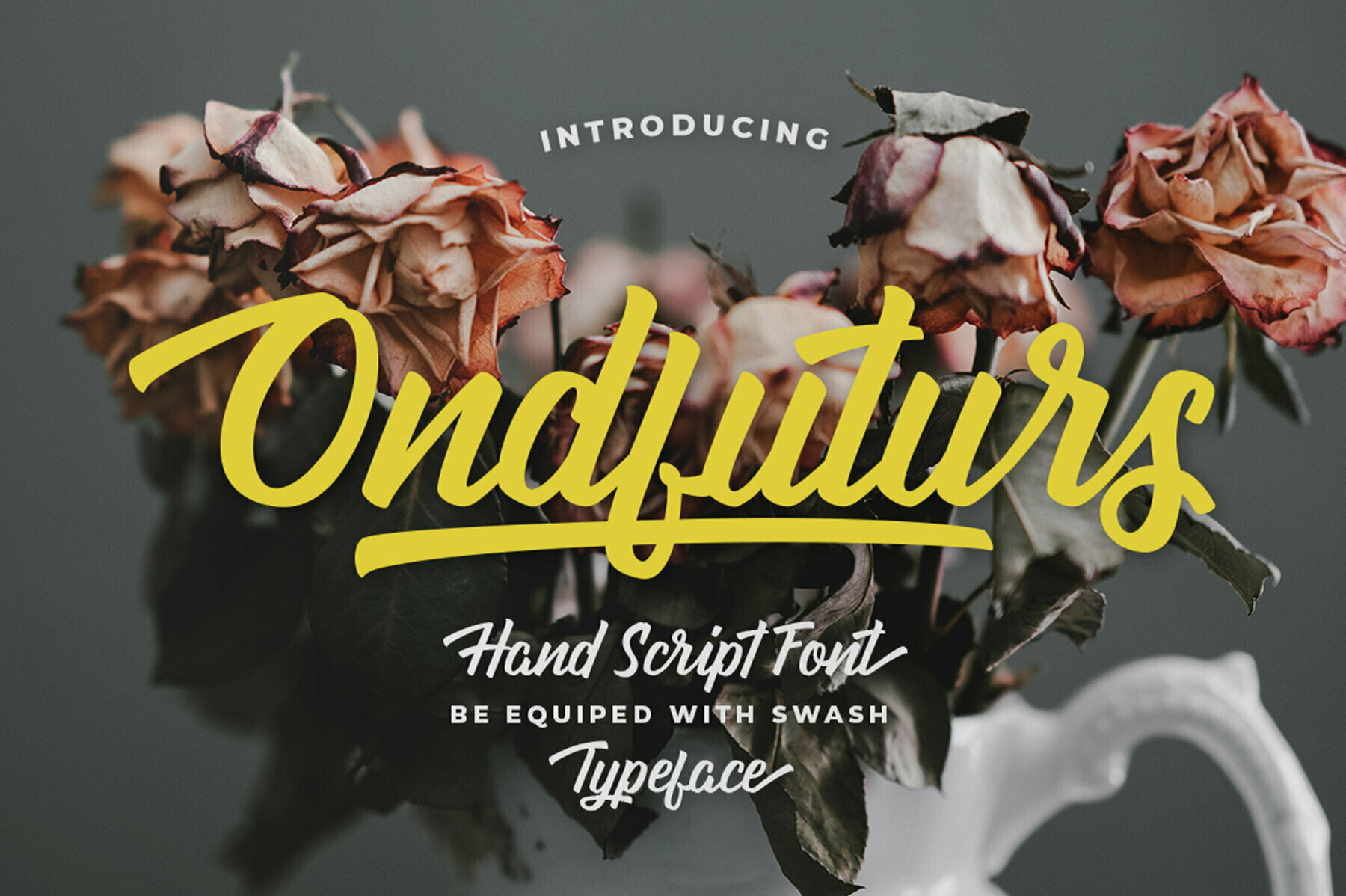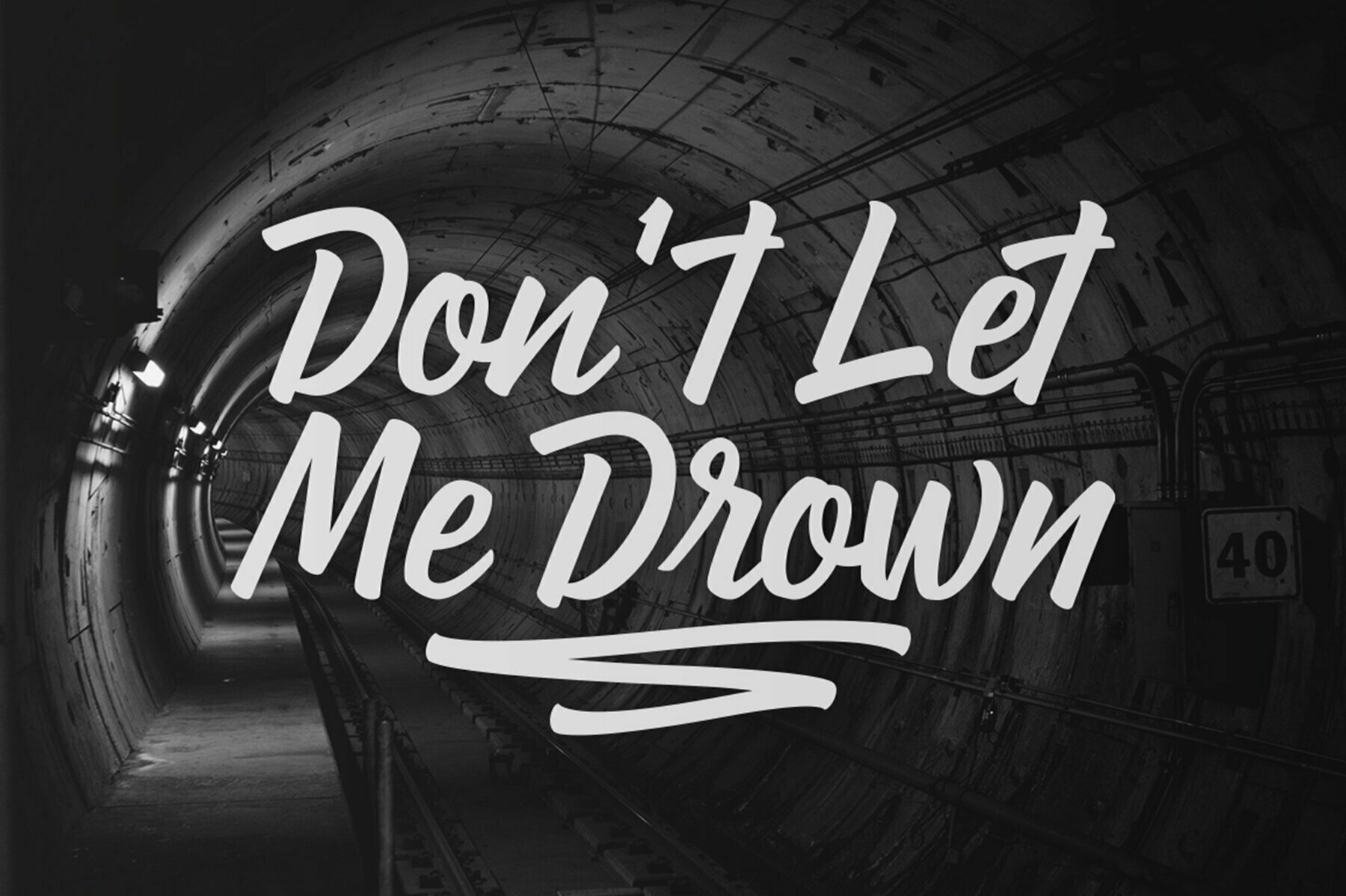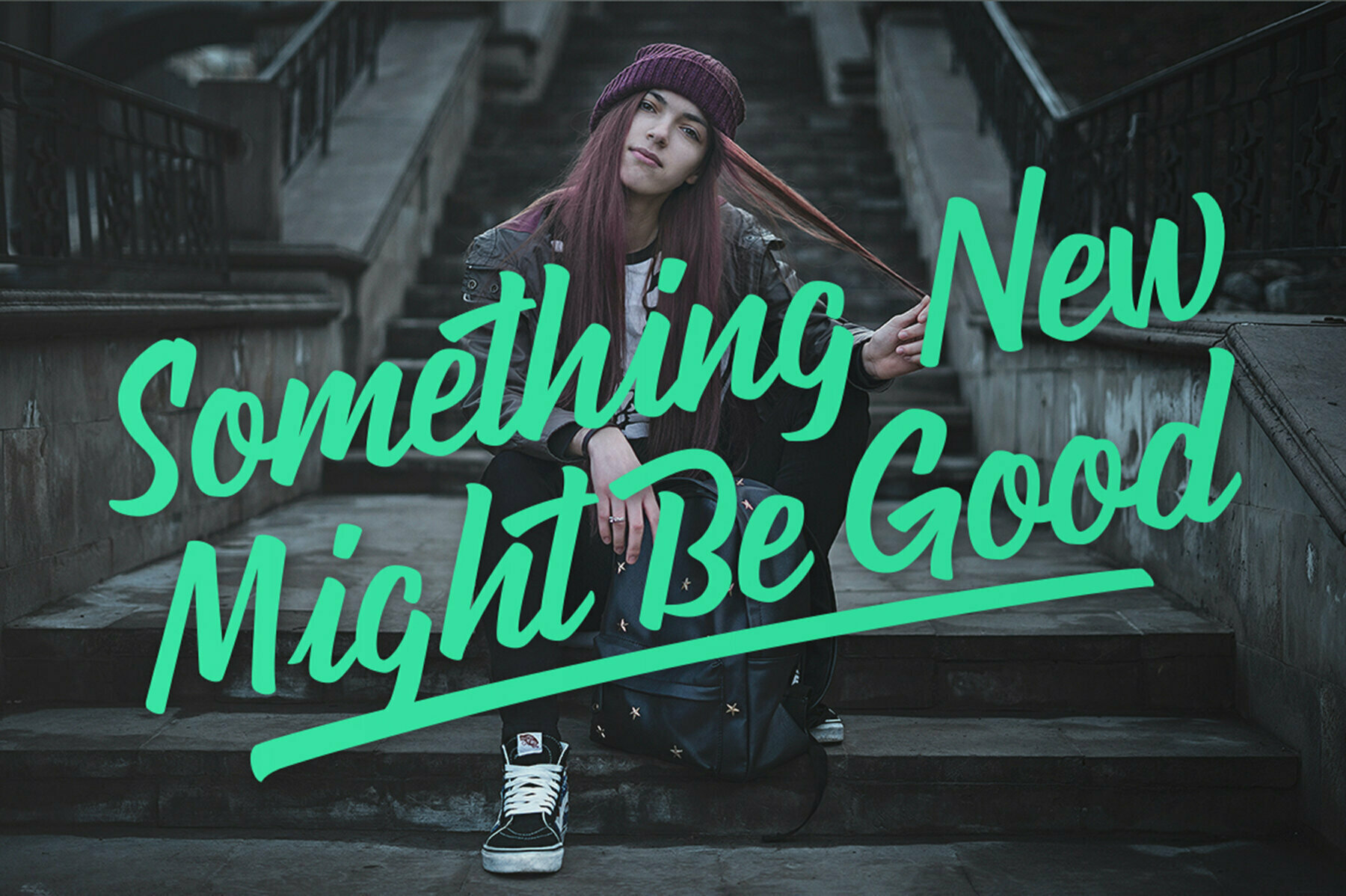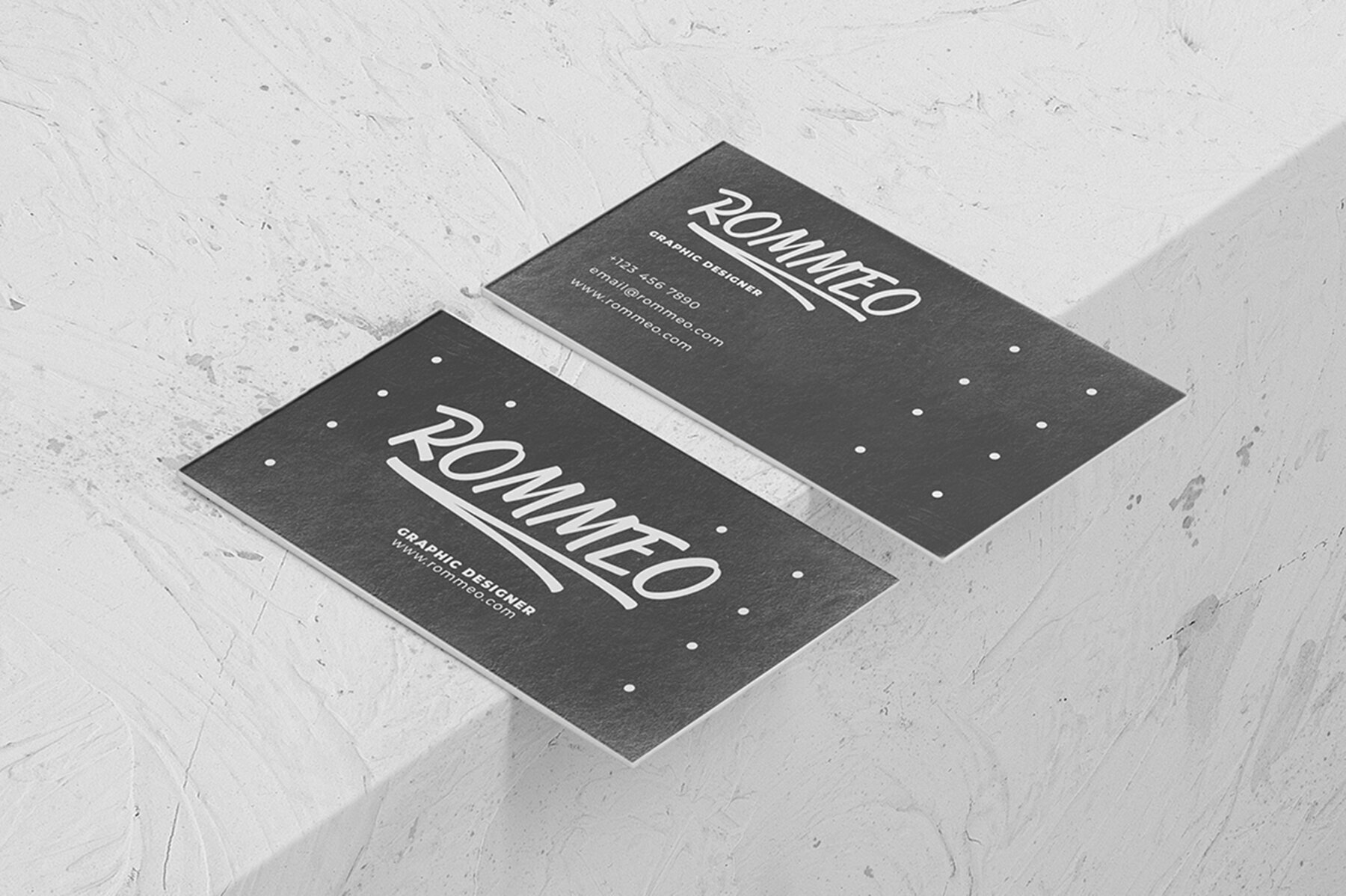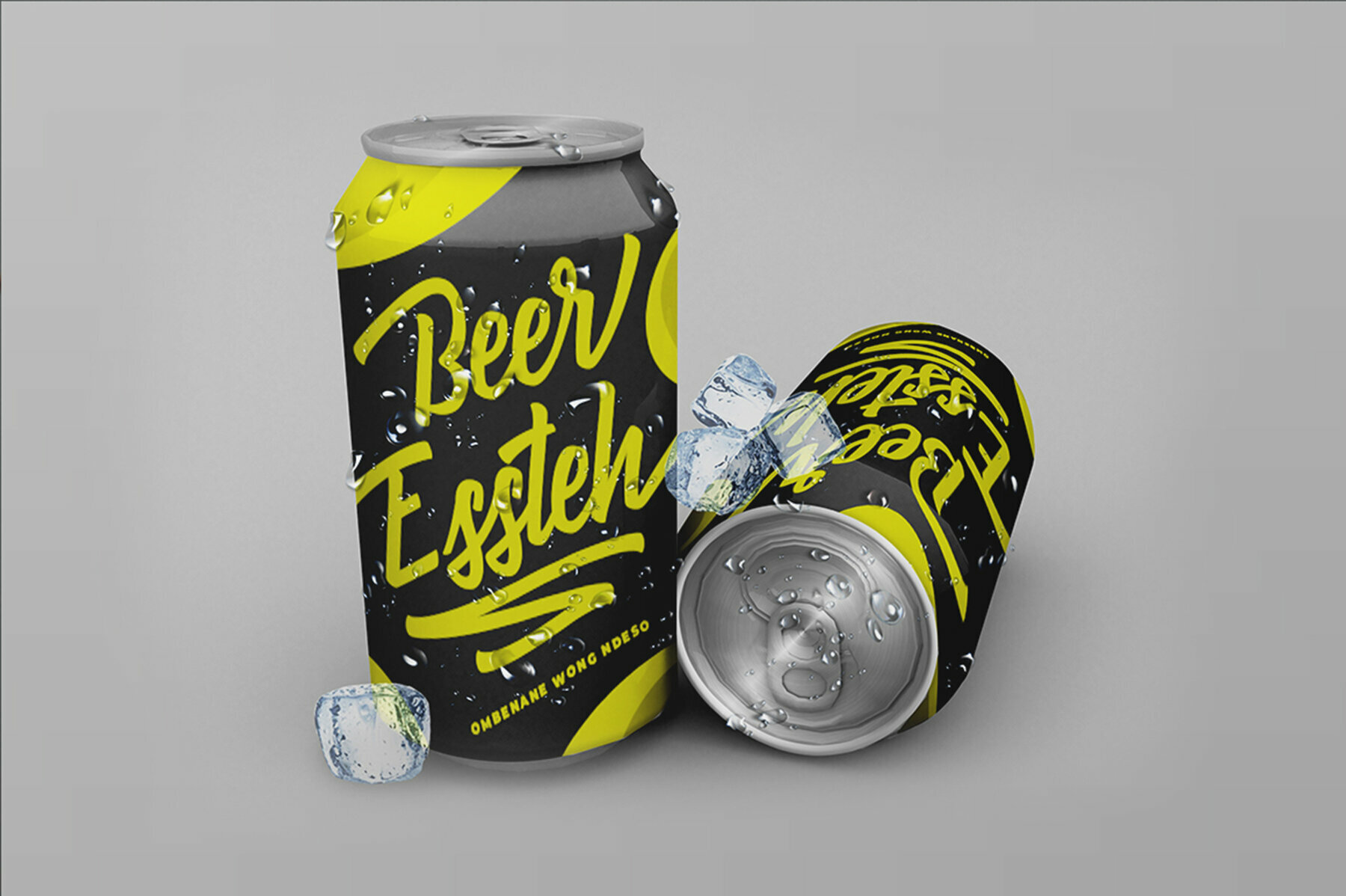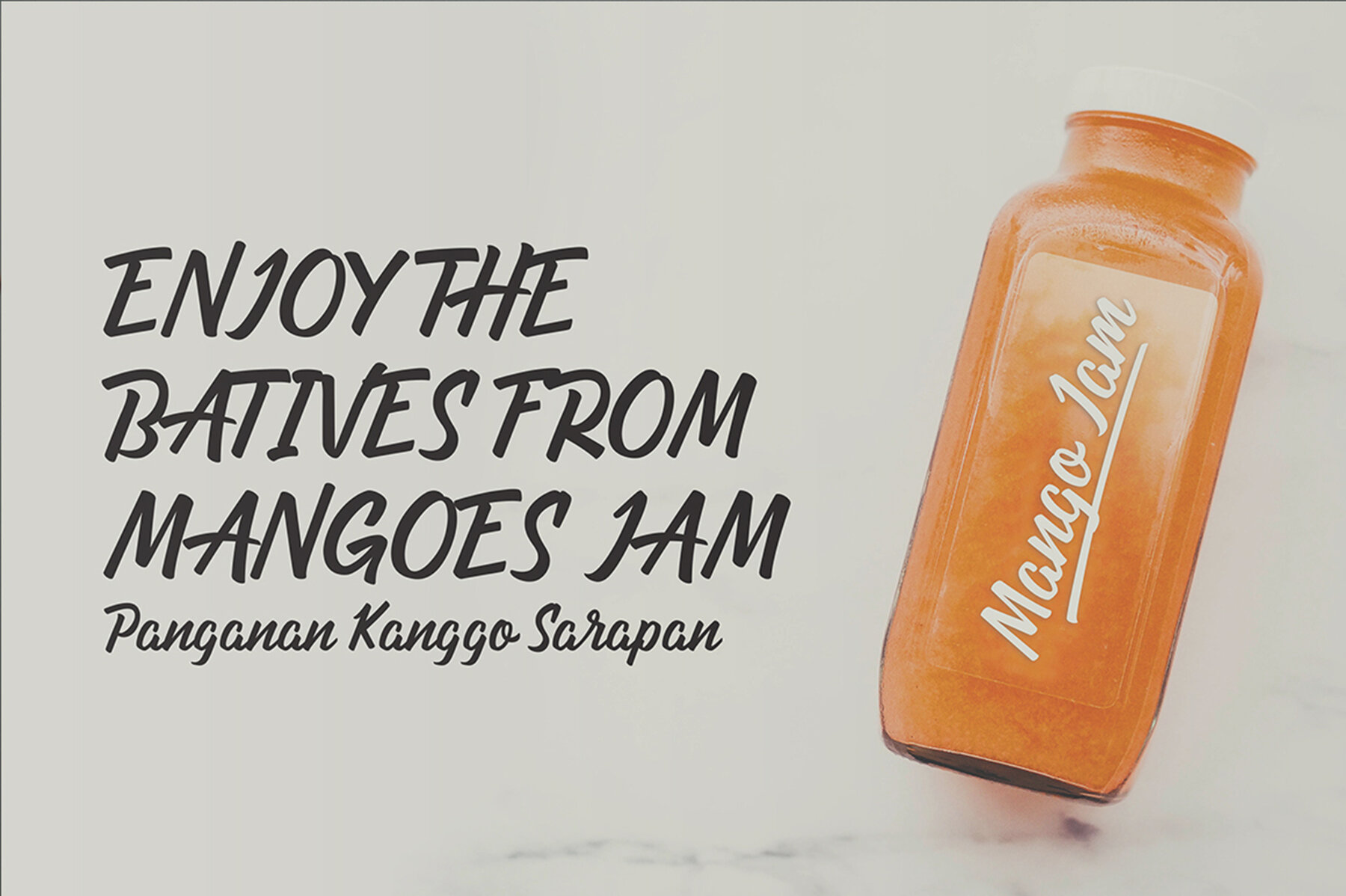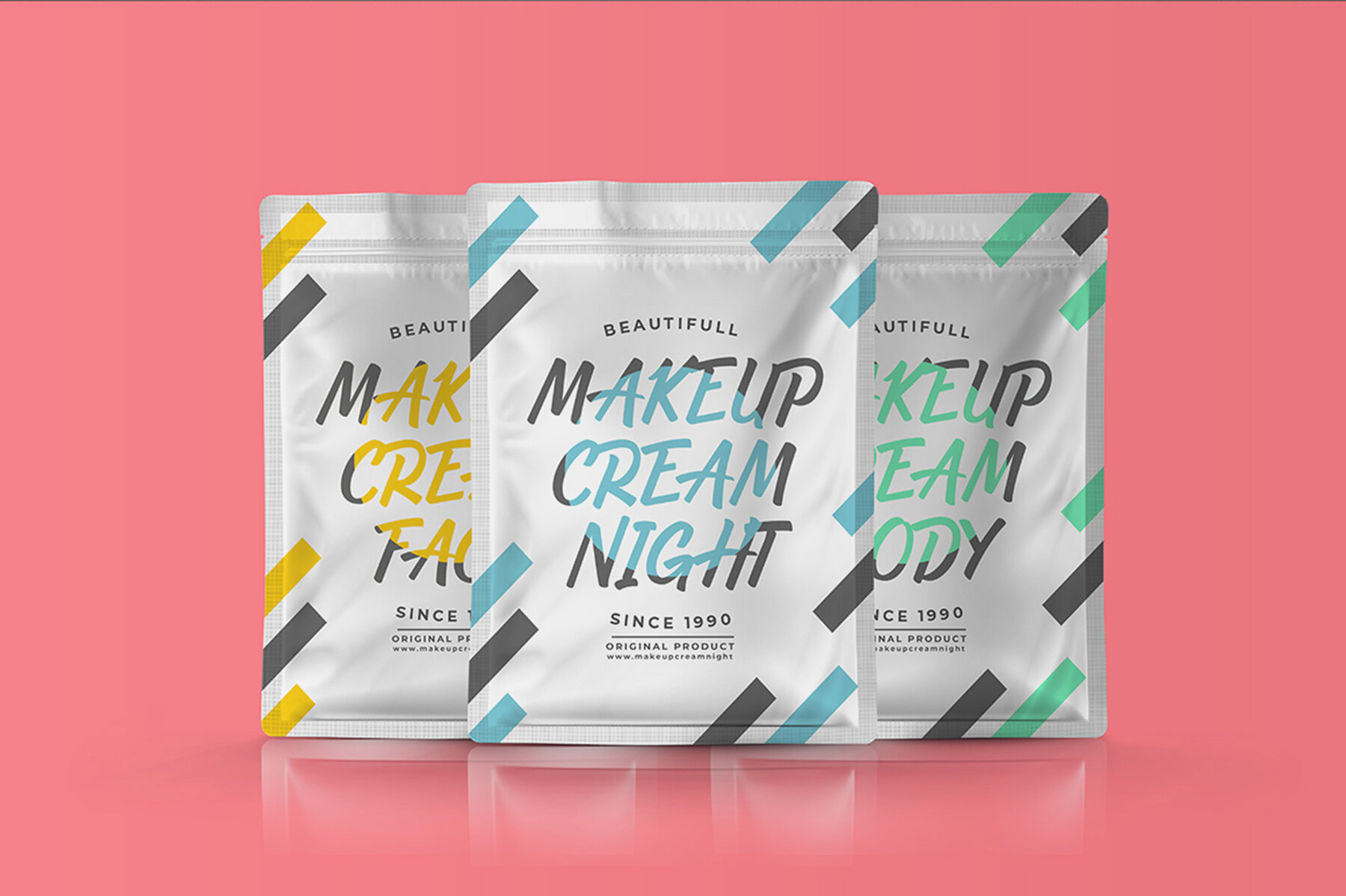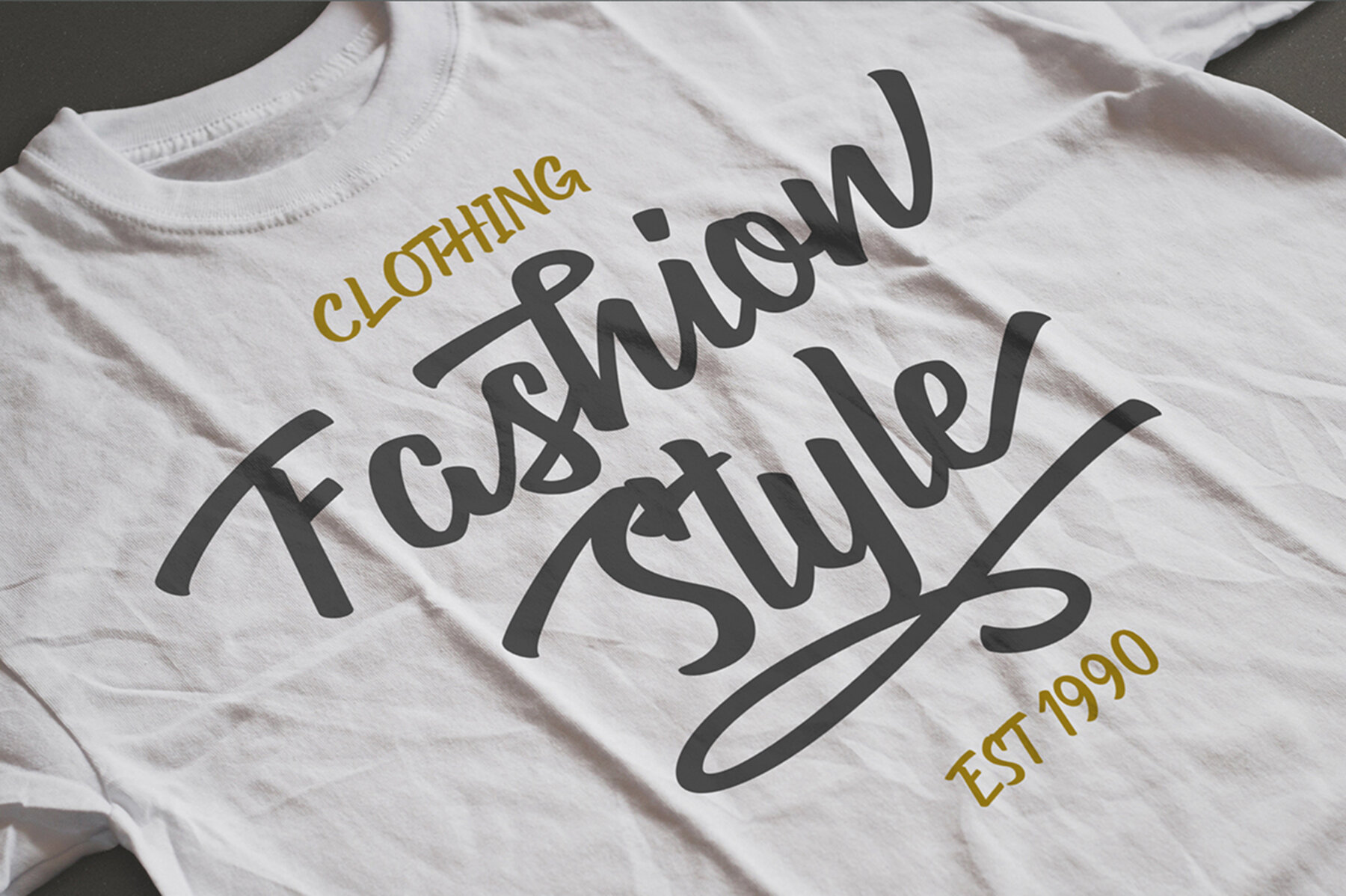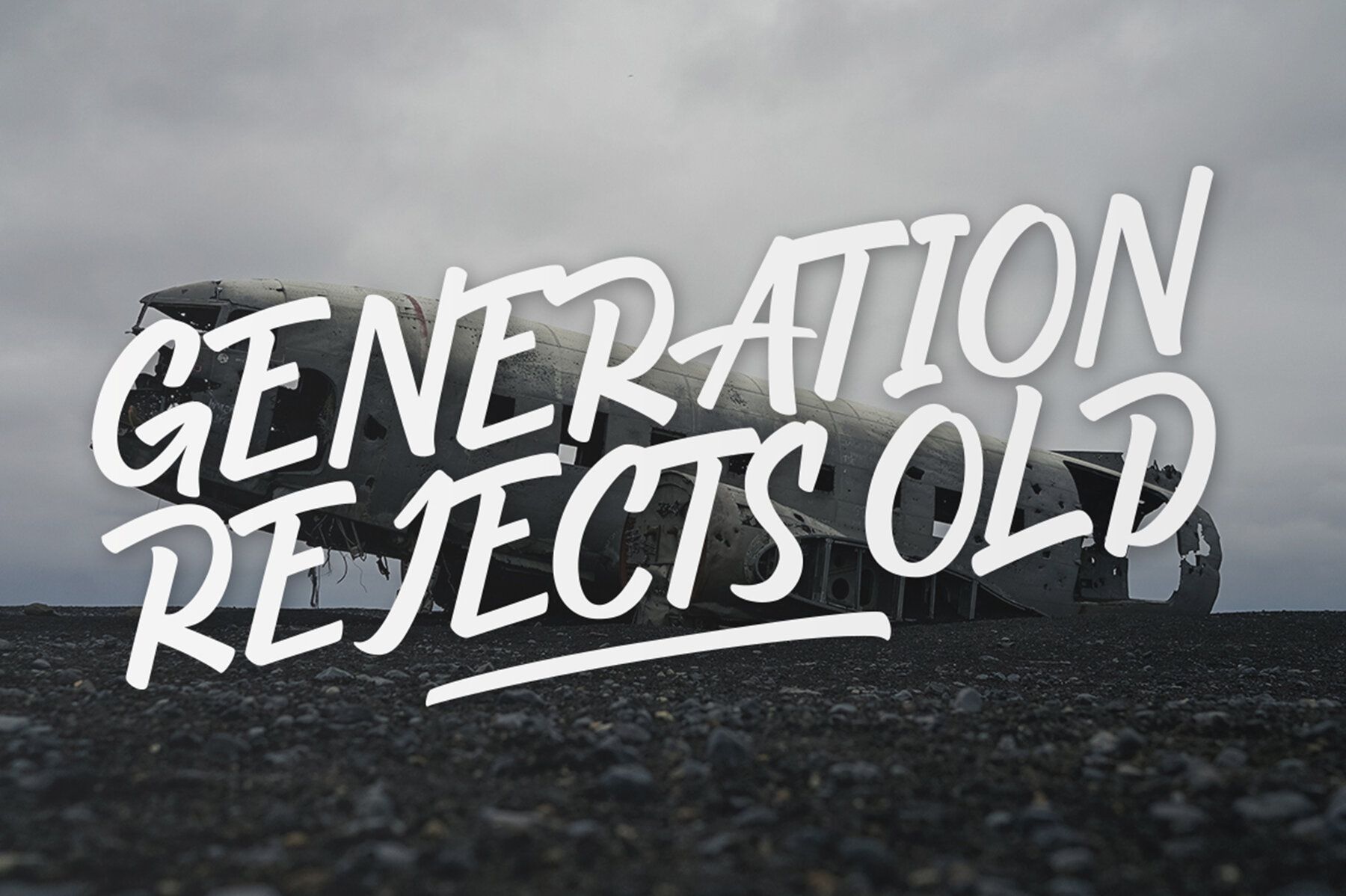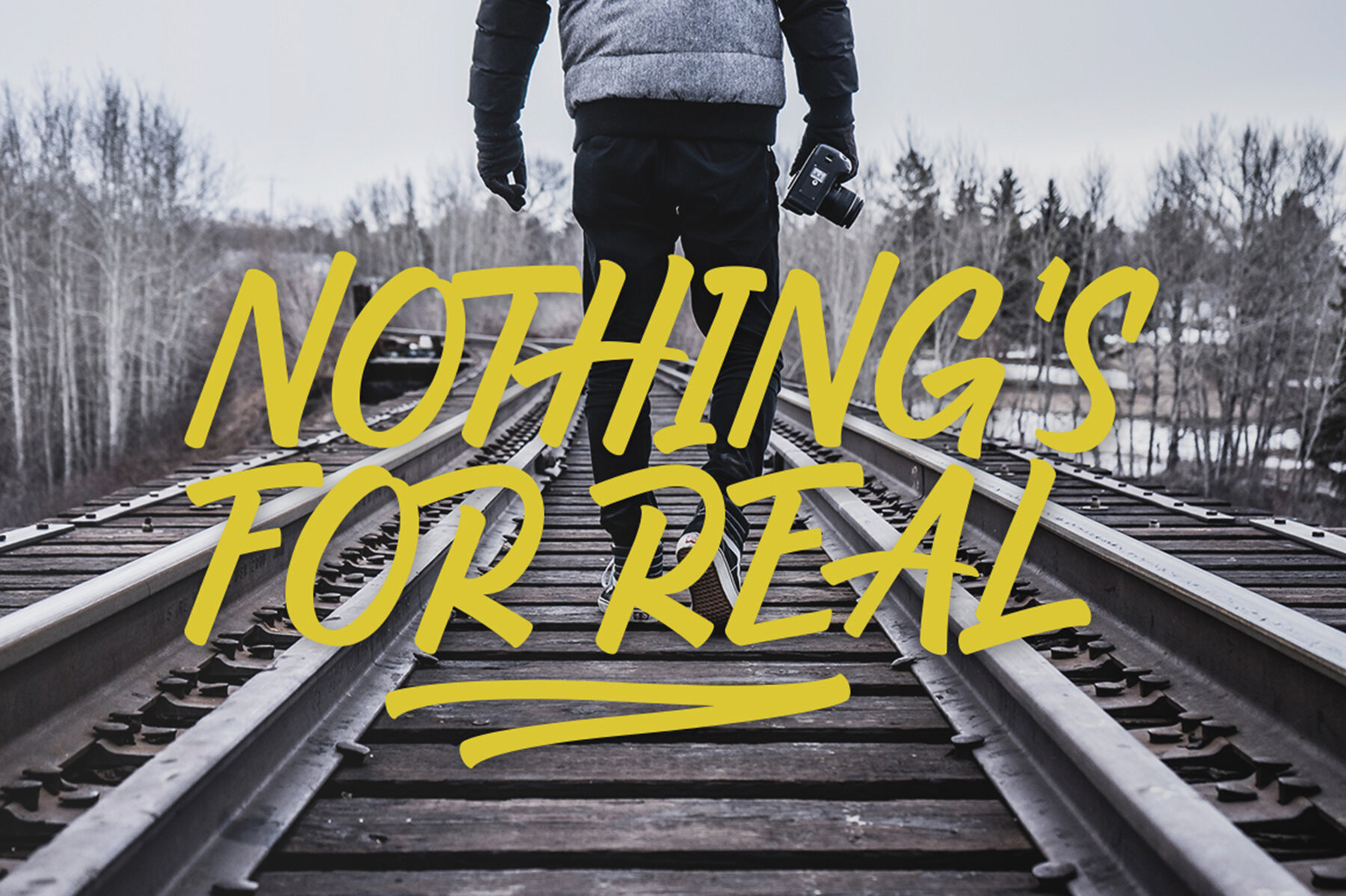
Ondfuturs Font
Ondfuturs Regular
Ondfuturs Swash
Enchant your designs with Ondfuturs, a script font crafted with a unique blend of past and future influences. Created with both a sense of nostalgia and forward-looking flair, this font captures the emotion of memory and the resolve to advance confidently. Its thick, legible strokes are designed for diverse applications, creating an emotive connection in every piece of work. The Ondfuturs script font is perfect for a wide range of creative projects. Its flowing characters are ideal for conveying messages that prioritize clarity and aesthetic appeal. Whether you’re crafting a logo or designing a wedding invitation, the font adapts to various contexts with ease. Features:Ondfuturs: A Script Font Bridging Eras
Versatile Design Capabilities
Ondfuturs offers the flexibility to create unique and simple compositions, enabling designers to mix and match with alternative characters and swashes. This versatility opens up countless possibilities for memorable and expressive typography.